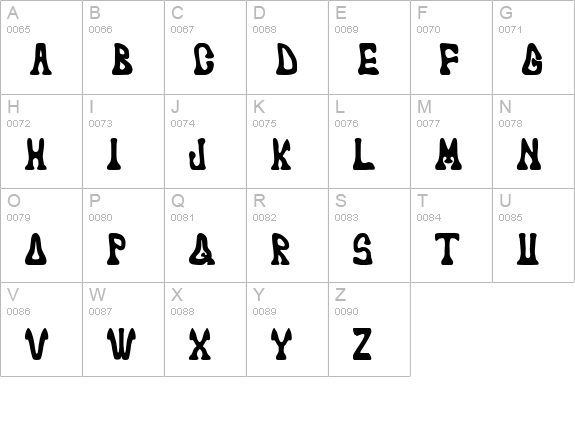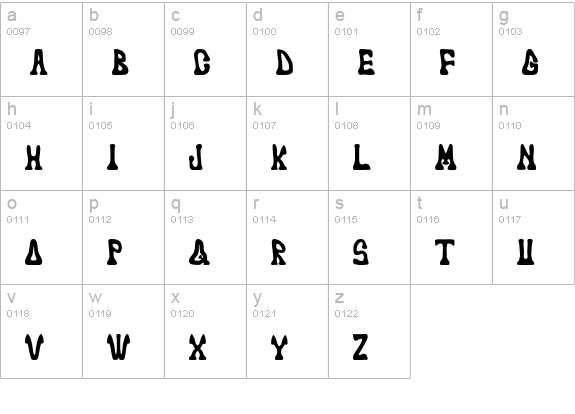
marked fool Font Details
Introducing the captivating and whimsical Marked Fool font, a true gem in the world of typography. With its unique and playful design, this font is guaranteed to add a touch of charm and character to any project. The Marked Fool font boasts a wide range of eye-catching features that make it stand out from the crowd. Its curvaceous letterforms dance across the page, creating a sense of movement and liveliness. The carefully crafted serifs and exaggerated strokes further enhance its distinctiveness, making it a font that is impossible to ignore. But what truly sets the Marked Fool font apart is its incredible versatility. Whether you're designing a logo, crafting a poster, or creating an eye-catching headline, this font will effortlessly adapt to any creative endeavor. Its bold and confident presence will instantly grab attention and leave a lasting impression on your audience. And the best part? The Marked Fool font is freely available to download at FontsMarket.com. Yes, that's right - you can bring this exceptional font into your design arsenal without spending a dime. FontsMarket.com offers a vast collection of high-quality fonts, and the Marked Fool font is just one of the many treasures waiting to be discovered. So go ahead, unleash your creativity and make a bold statement with the Marked Fool font. With its captivating design and its availability at FontsMarket.com, there's no excuse not to embark on a typographic adventure like no other. Download it today and let your imagination run wild!